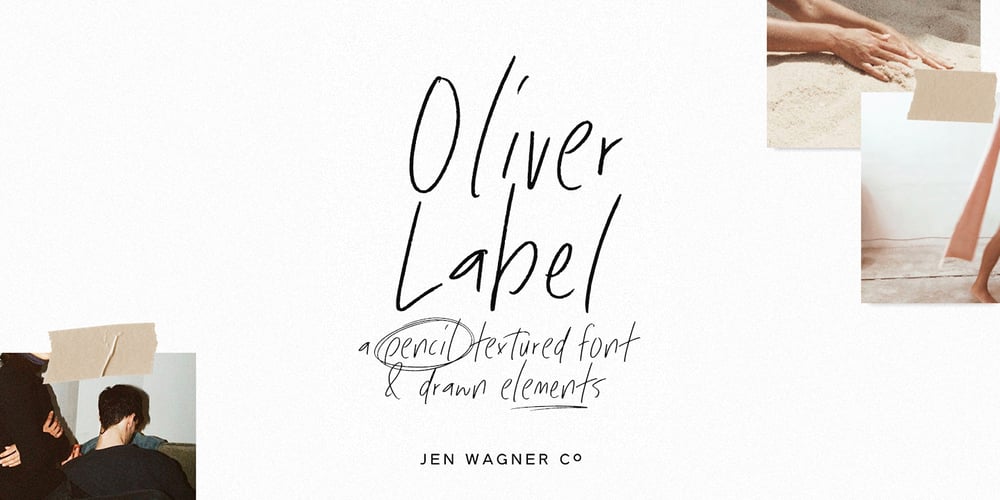
Oliver Label
Oliver Label font
Oliver Label Font Family was designed by Jen Wagner and published by Jen Wagner Co.. Oliver Label contains 3 styles and family package options. Oliver Label solves a problem many creatives face – the endless search for a realistic pencil-textured font to add handwritten notes to images, quotes, blog posts, and more without having to do it themselves. With Oliver Label, you can easily add handwritten notes to your images!BIGGEST BENEFITS: Vector pencil texture 26 hand drawn elements so your quotes look beautiful and custom No more wasted time trying to add your own notes and handwritten feel to your work (or worrying about your handwriting!) INFO: Oliver Label Regular: A textured vector font that works with any Desktop application (Word, Photoshop, Canva, etc.). Includes ligatures ll, ss, and tt. Oliver Label Alternates: ‘Alt’ version of Oliver Label, where you’ll get a whole new set of letters and numbers. This way, you can swap out regular letters for the alternates when you have two of the same letters close to one another (i.e. oo or bb) to look as realistic as possible. Includes ligatures ll, ss, and tt. Oliver Label Drawn: You’ll also get 26 different hand-drawn shapes to add to quotes and graphics. Non-English support for the international designer